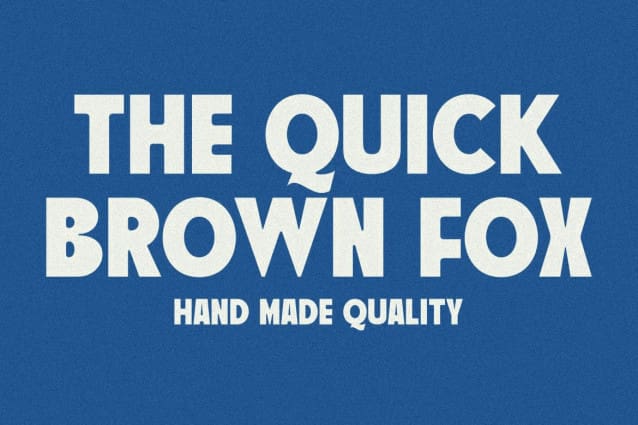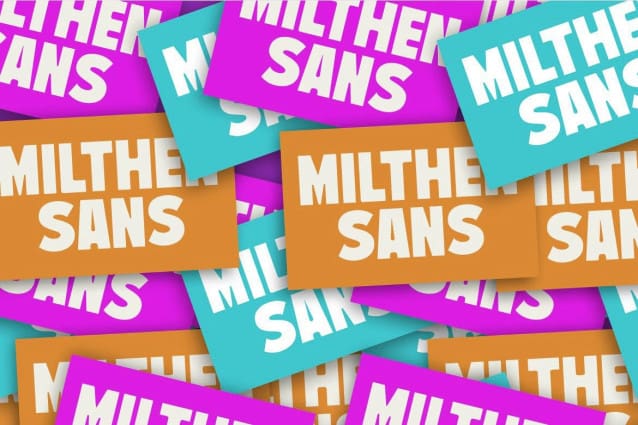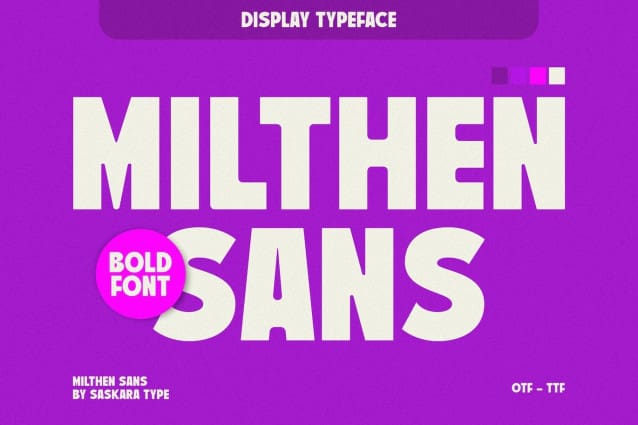
Milthen Sans Font
Milthen Sans Font is a stylish Sanserif font with a modern touch packed strong and dynamic, Great Font for logos, labels, flayers, Brochures, Signages, Pubs, Illustration Design, Tattoo Shops, Handmade Brands, anything to do with with modern style, vintage style , etc